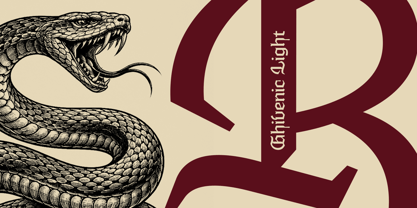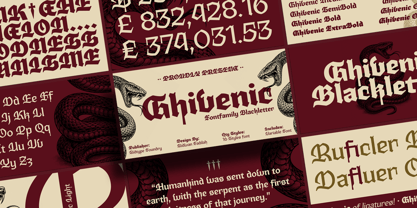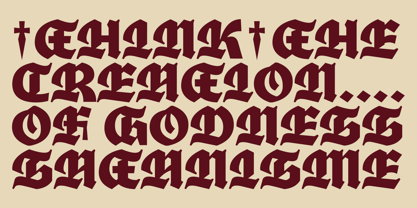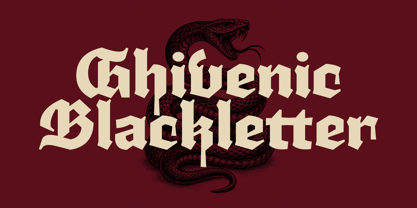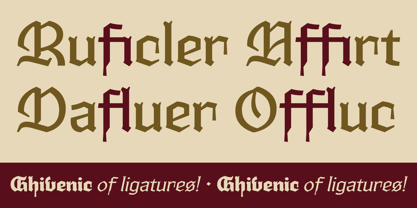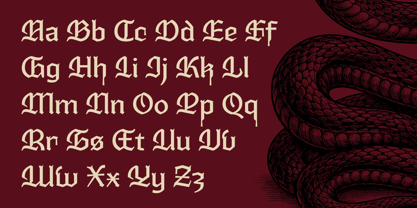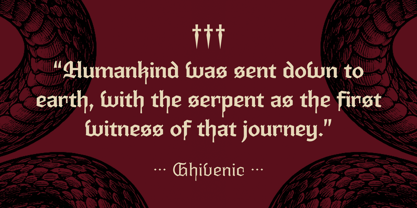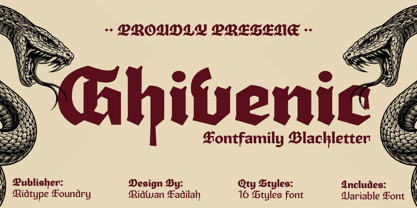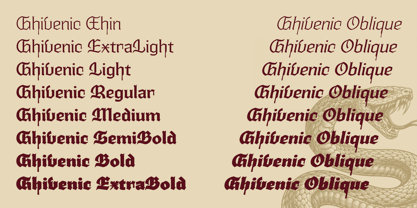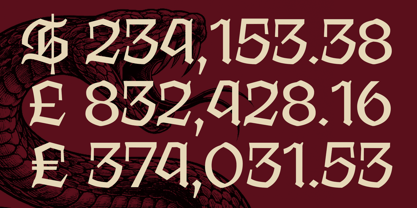
Ghivenic
by Ridtype
The Ghivenic Font Family was designed by Ridwan Fadilah and published by Ridtype. Ghivenic contains 17 styles and family package options. More about this family
Ghivenic font family blackletter is not merely typography, but a symbol of visual power. It delivers a historic, authoritative, and character-rich presence. Every sharp stroke reinforces a bold, exclusive, and premium identity. Ideal for brands that aim to appear dominant, legendary, and irreplaceable within today’s highly competitive modern landscape. Thanks for your support ❤︎‬